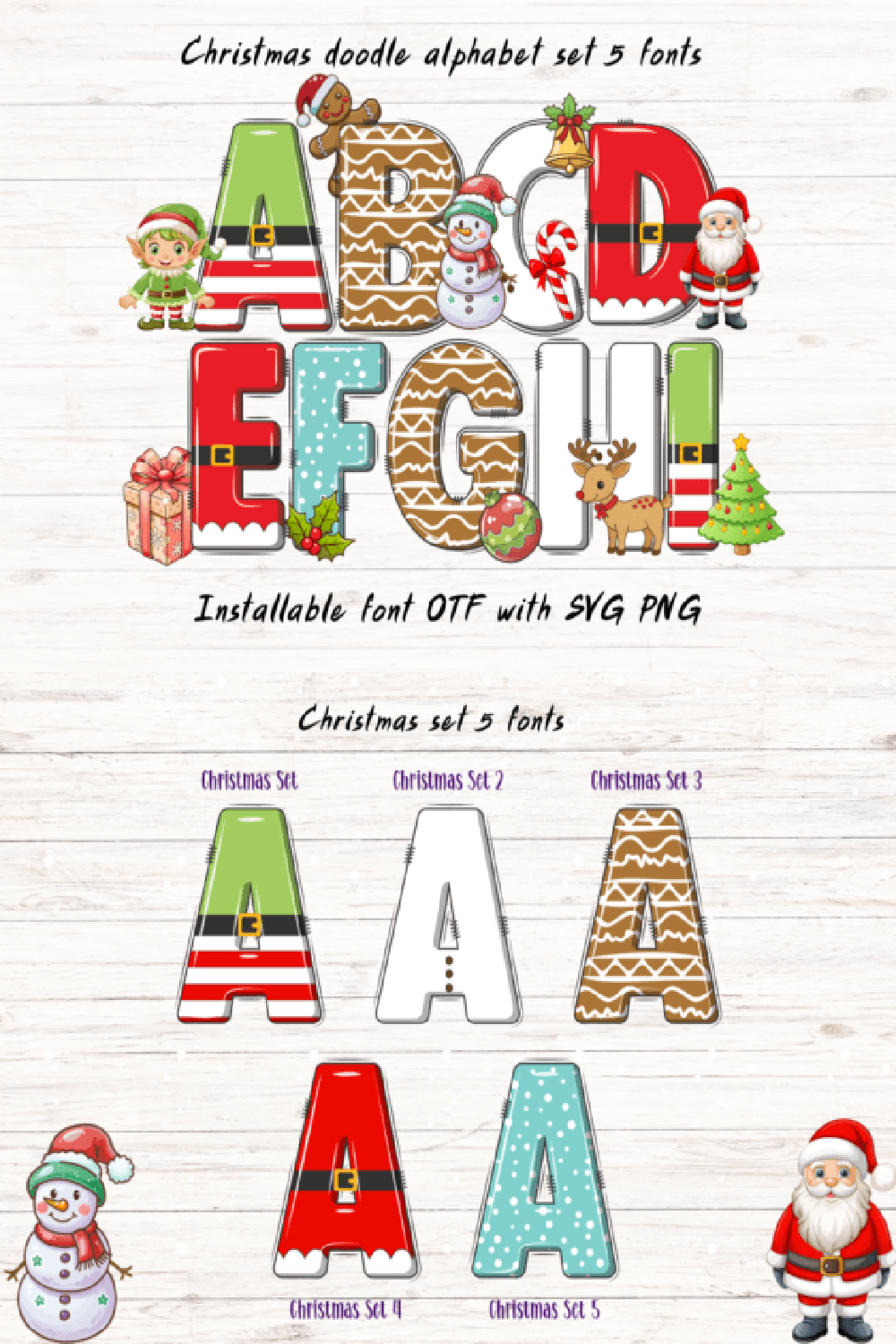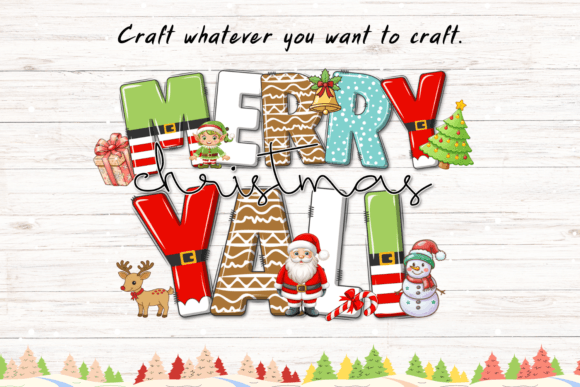
Christmas Set Font
About the Christmas Set Font
Introducing the Christmas Set Font, a beautifully crafted typeface designed to elevate your creative projects. Indulge in a festive ambiance with our ‘Christmas’ font – a charming, colorful typographic delight. Expertly designed to add a touch of holiday cheer to any design, sweater, craft, or greeting card, ‘Christmas’ is your go-to option for instantly amplifying the warmth and joy of your projects. Its adorable aesthetics will breathe Yuletide magic into your creations, showing Christmas isn’t just a season, it’s a feeling, embodied by this vibrant font.